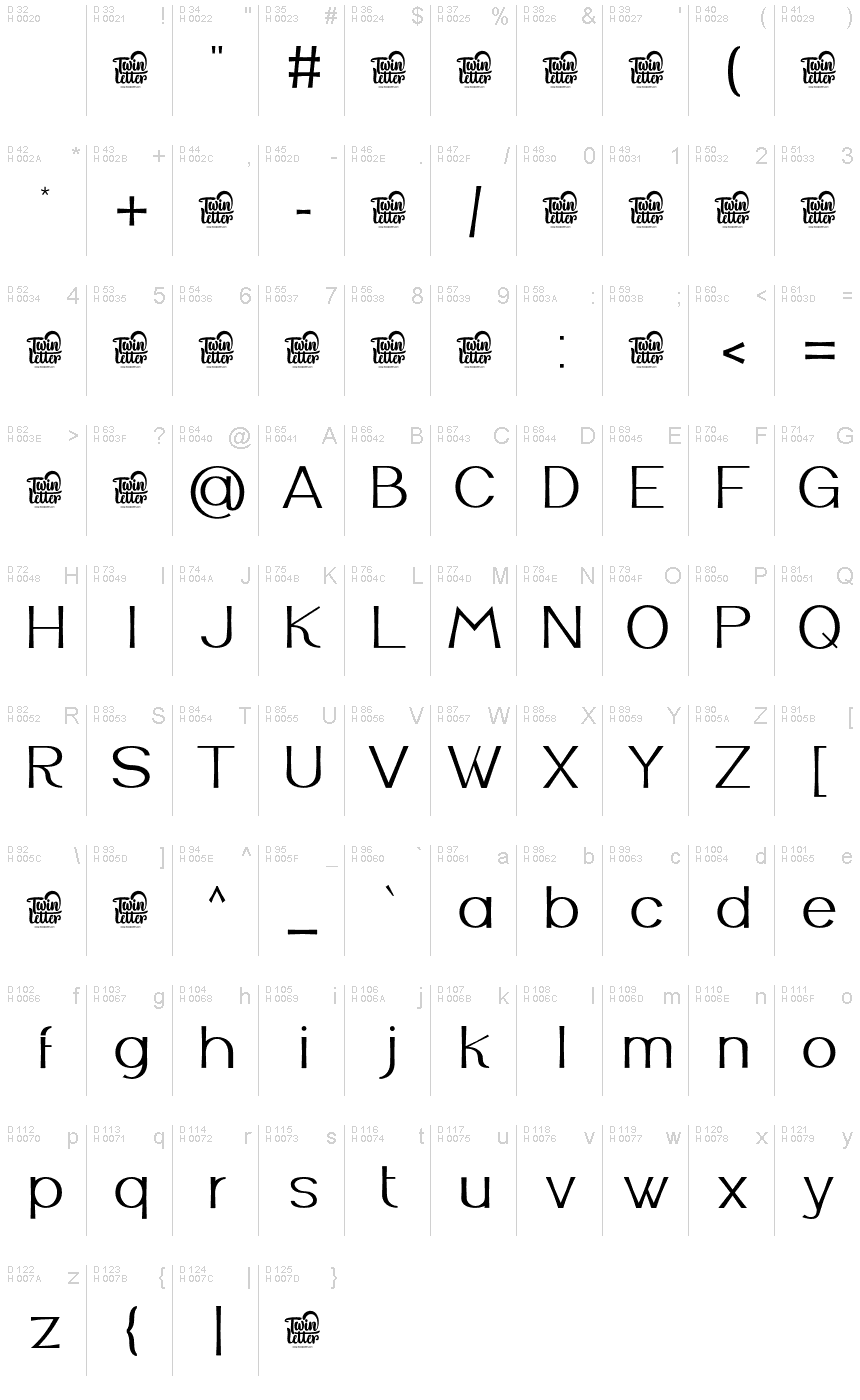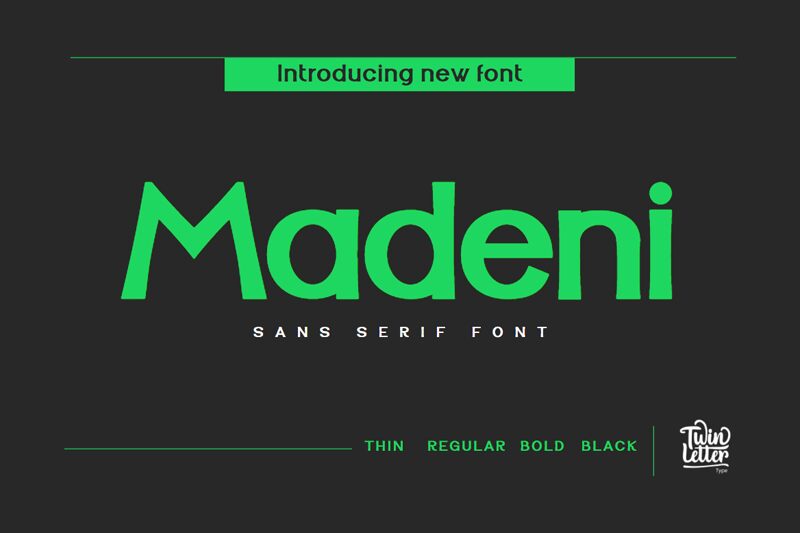
Madeni-Thin
Madeni Thin is a sleek and modern sans serif font created by twinletter. With its semi-light weight, this font is perfect for projects that require a clean and elegant touch. Use Madeni Thin for your branding materials, such as business cards or logos, to make a subtle yet impactful statement. Its minimalistic style also makes it an excellent choice for editorial designs, like magazines or newsletters. Whether you're looking to add some sophistication to your website or create eye-catching packaging for your products, Madeni Thin is the perfect semi-light font option to elevate any project.